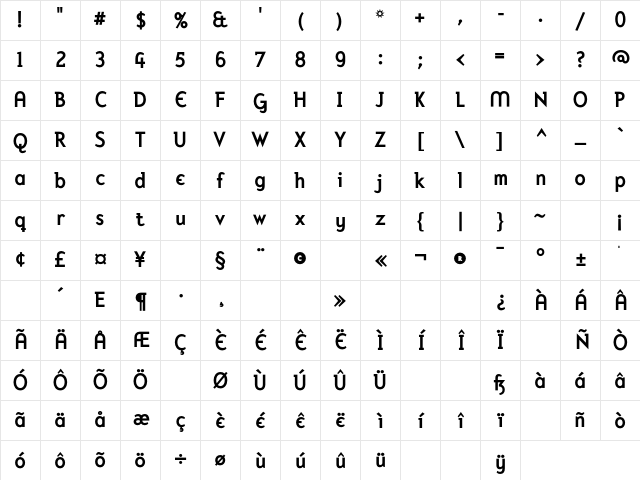
Mercury AlternativeBold
Style: AlternativeBold
Design Context for Mercury
Mercury is a composed and adaptable typeface that performs quietly and consistently across a wide range of design contexts. Its bold stroke weight gives it real presence on the page.